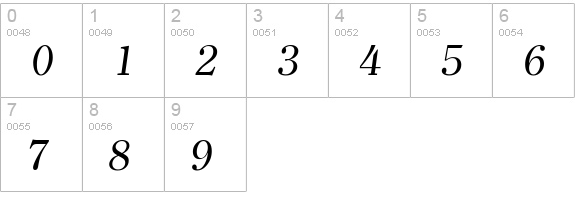
ClearfaceSerial-Italic is a distinctive, italic variant in the ClearfaceSerial typeface family \xE2\x80\x94 well suited to design and typography projects.
ClearfaceSerial-Italic is a sophisticated and elegant font that exudes a sense of classic charm and refinement. Its italicized design adds a touch of style and flair to any project, making it ideal for use in invitations, branding, and editorial design. The delicate curves and unique letterforms of ClearfaceSerial-Italic make it a versatile choice for both print and digital applications. This font is available for free download at FontsMarket.com, where you can easily access and incorporate it into your designs without any cost. Whether you're looking to add a touch of sophistication to your project or simply want to elevate your typography game, ClearfaceSerial-Italic is an excellent choice that will surely impress.